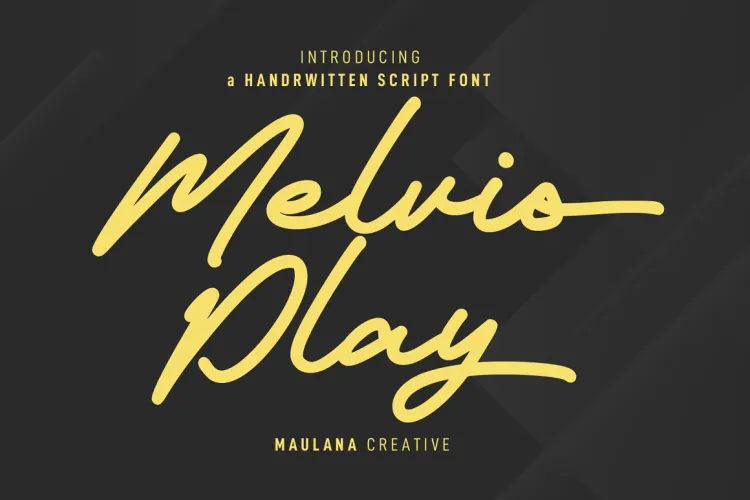
Introducing the delightful Melvio Play – Signature Script Font! 🎉 This digital download offers instant access to a beautifully crafted font that brings a personal and elegant touch to all your creative projects. Whether you’re working on Photoshop presets, digital typography, branding, invitations, or social media graphics, this signature font perfectly combines modern style with the charm of classic handwriting. ✍️
The Melvio Play font is an exquisite choice for anyone looking to add a sophisticated flair to their designs. With its flowing curves and artistic style, it’s ideal for making your text stand out in a sea of standard fonts. Perfectly suitable for both personal and professional use, this font will surely make your work shine! 🌟
- Elegant and stylish signature script font → Perfect for adding a touch of sophistication to any project.
- Includes uppercase, lowercase, numerals, and special characters → Versatile for various design needs.
- Supports multilingual characters → Broadens your creative horizons to reach a global audience.
- Ideal for branding, logo design, and digital artwork → Elevates the visual appeal of your creations.
This font is a fantastic choice for graphic designers, branding experts, and anyone looking to create stunning visual content. It’s particularly great for those who appreciate a handwritten aesthetic in their designs. 🎨
- Does it support multiple languages? Absolutely! It includes multilingual characters for broader usage.
With Melvio Play, your designs will not only look beautiful but also convey a personal touch that resonates with your audience. 🌈 Whether you’re creating for the Melvin Players Club or designing for a special event, this font is here to elevate your creative journey!